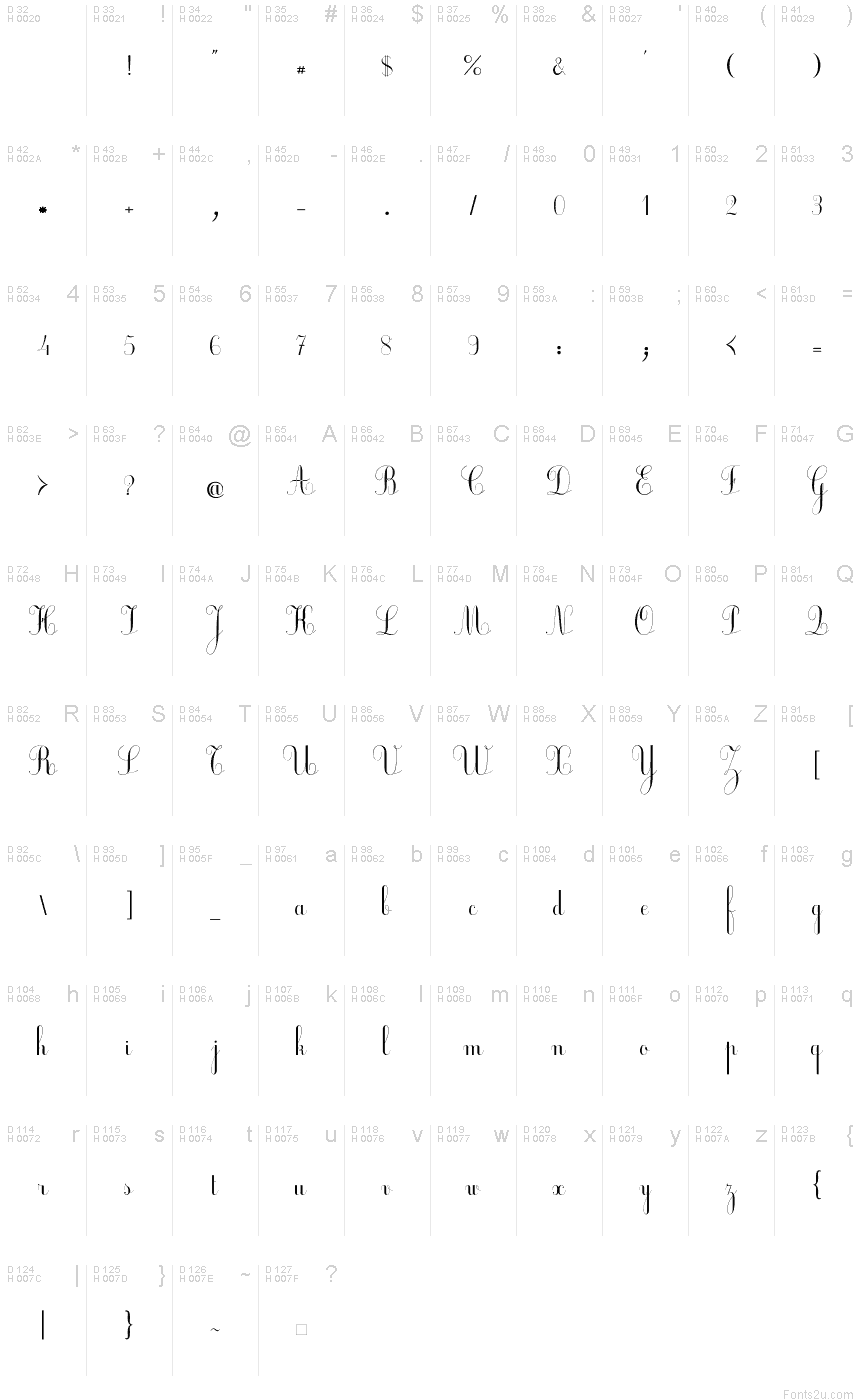
Ecolier_court
Ecolier Court font by JM Douteau is a free, flowing calligraphic script with tall looping capitals and elegant, tapering strokes. The letters connect in a smooth rhythm that feels both playful and refined, with bold vertical strokes and hairline links giving it a lively handwritten presence. It keeps a clean overall texture while still feeling personal.